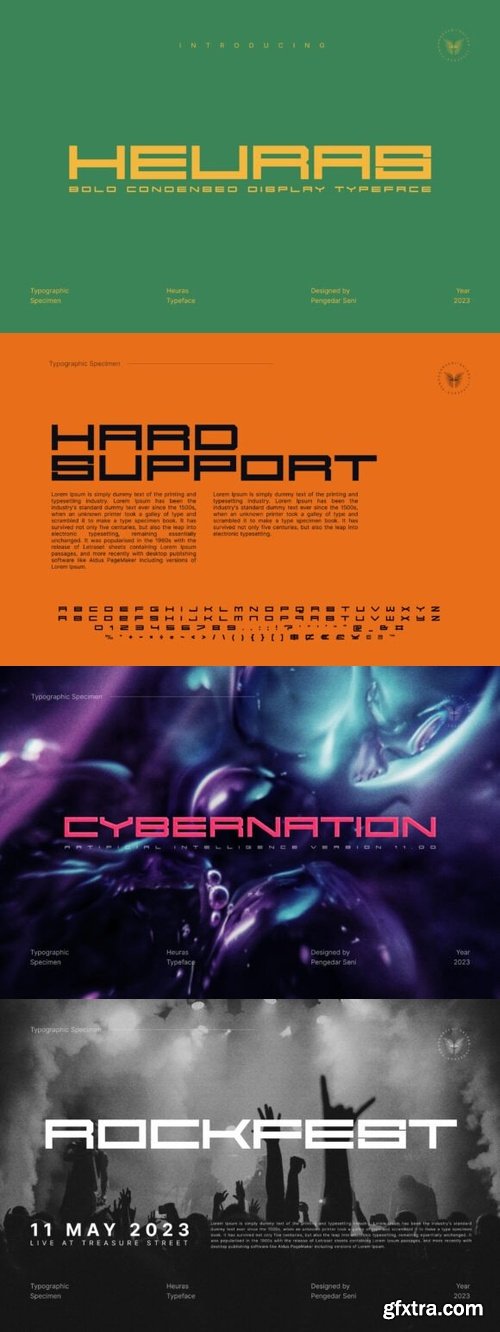
Heuras Font
- Heuras is a bold, condensed display typeface built for dominance, strength, and athletic energy. Designed with sharp horizontal cuts and a balanced structure, Heuras delivers an intense, futuristic, and action-packed aesthetic. Whether for sports branding, technology logos, or high-impact headlines, this typeface commands attention with its fearless attitude.